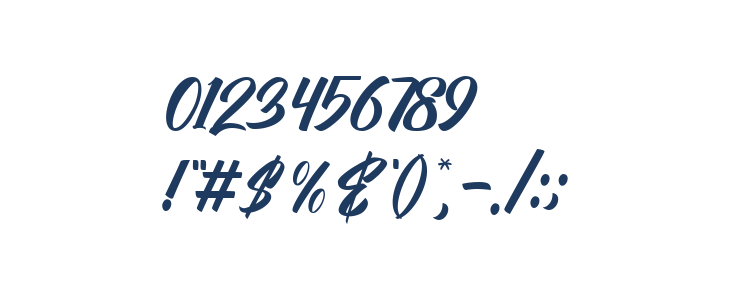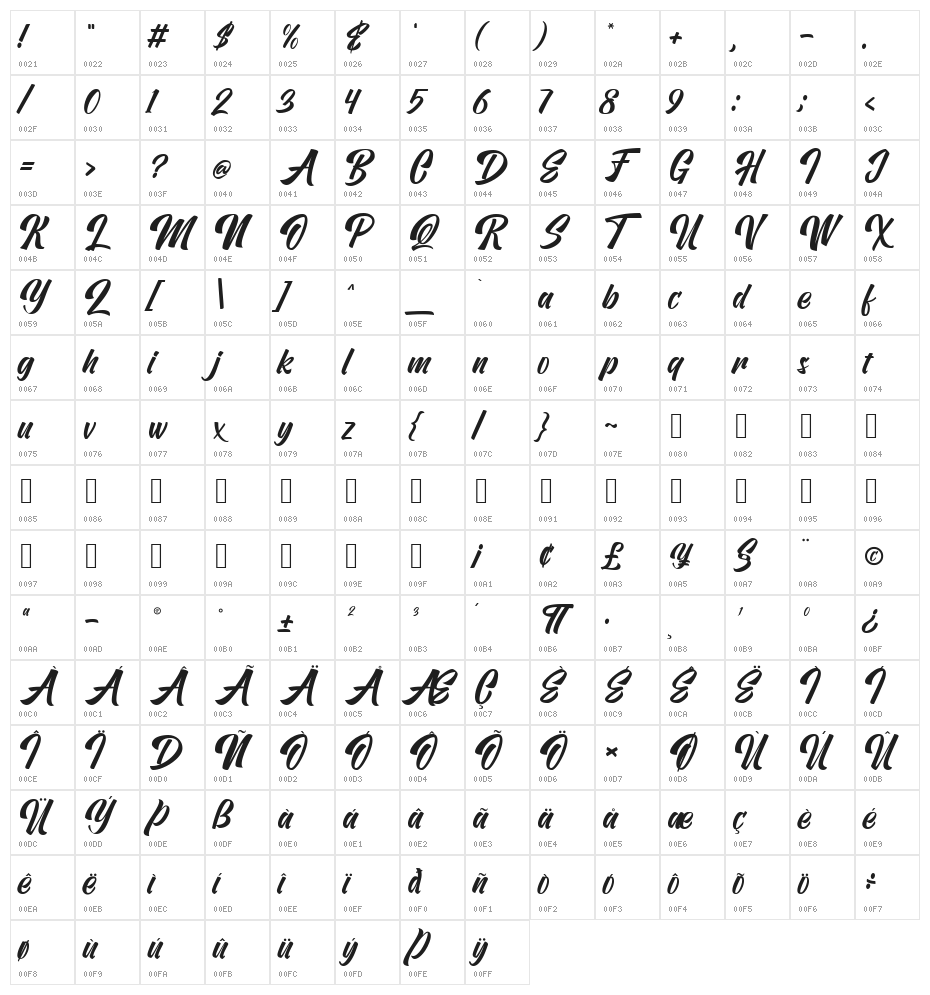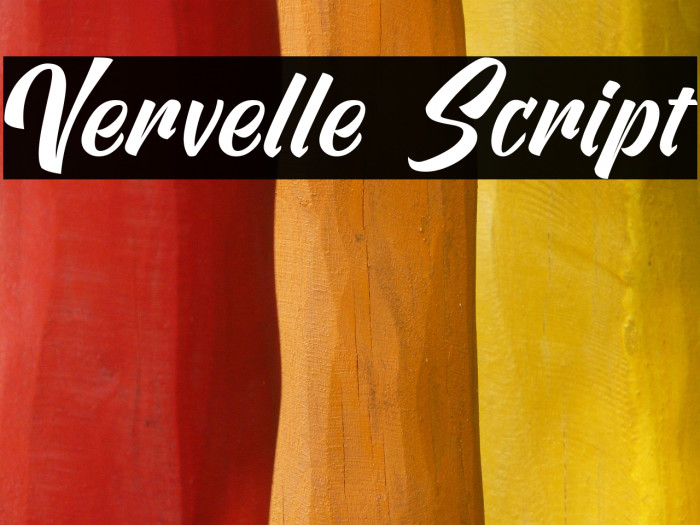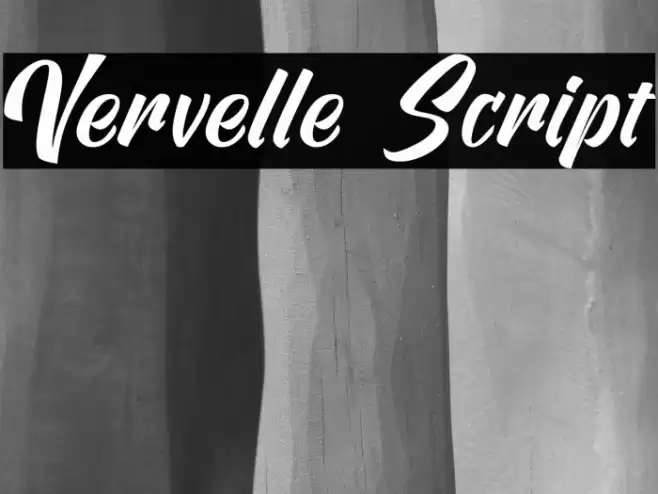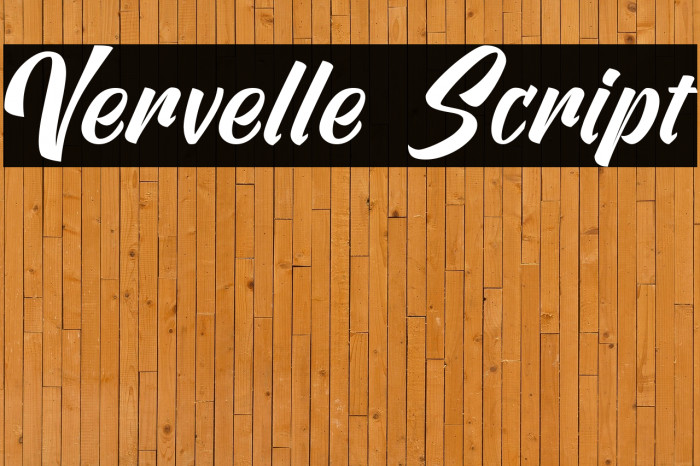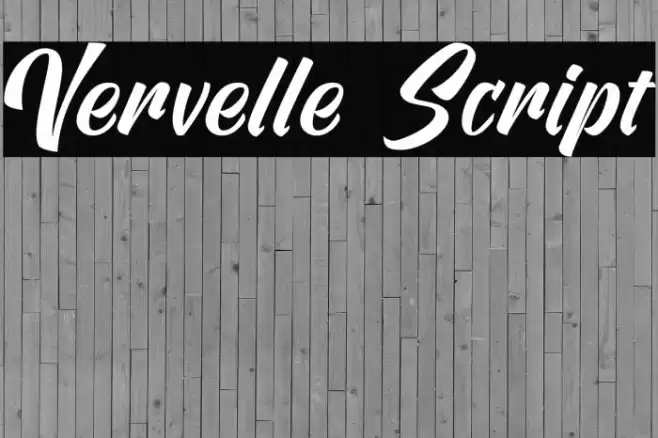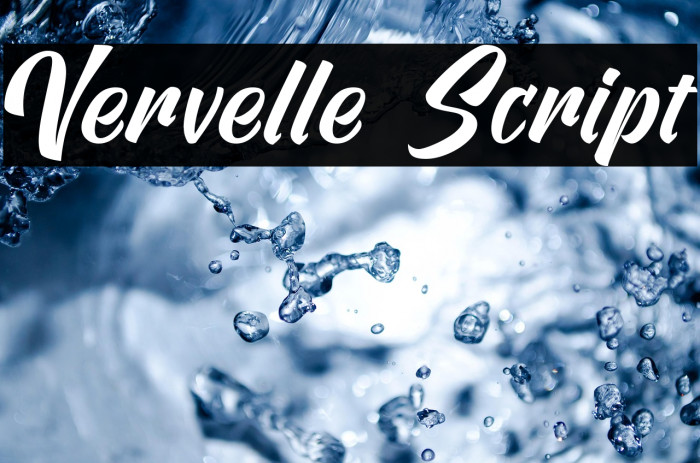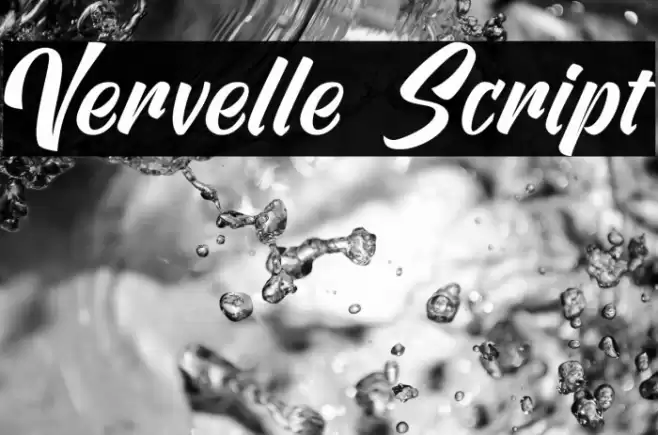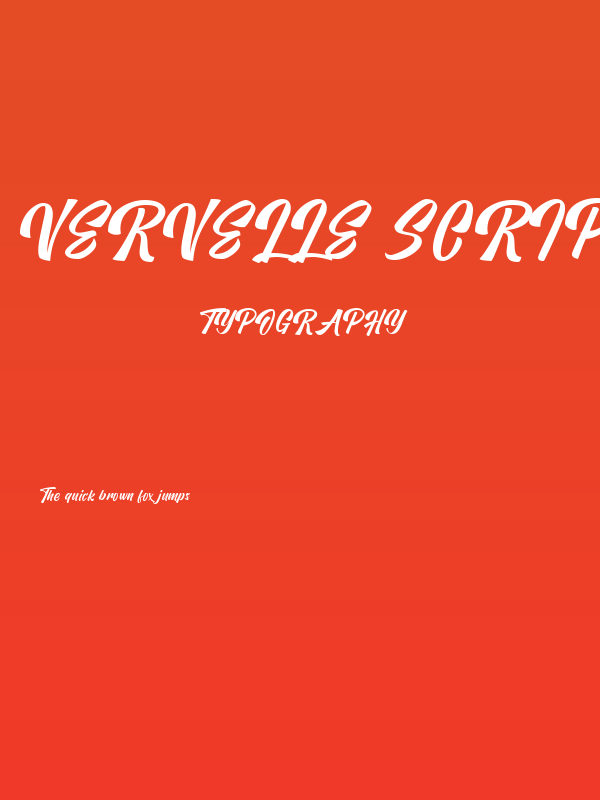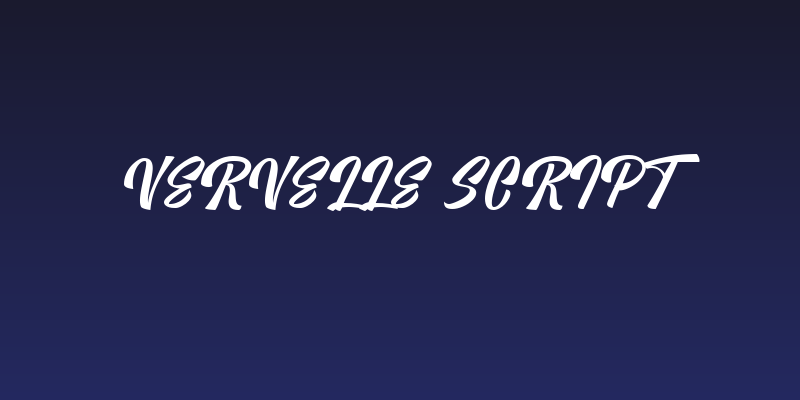
Vervelle Script Font
Vervelle Script Description
This script font exudes elegance and fluidity, characterized by its sweeping curves and smooth connections between letters. The uppercase letters are bold and dynamic, with a slight slant that adds a sense of motion and grace. The lowercase letters maintain a consistent flow, enhancing readability while retaining a stylish flair. Numbers and special characters are crafted with the same attention to detail, ensuring a cohesive look across all text. The font's bold strokes and high contrast make it stand out, ideal for creating eye-catching designs.
| Proposed Projects | Ideal for wedding invitations, branding, logo design, and elegant packaging. |